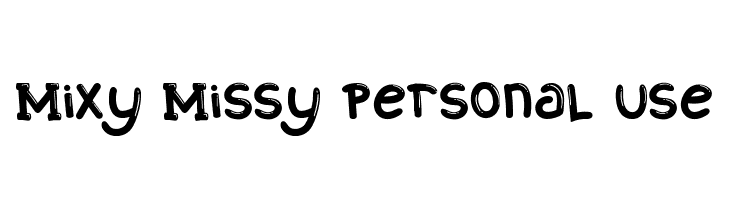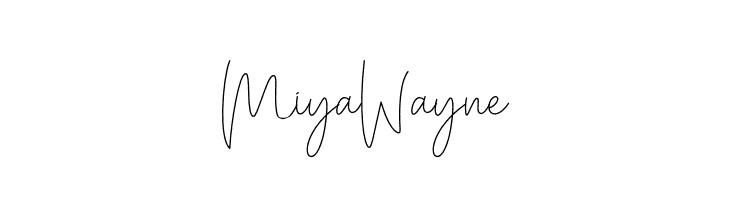
• Mixy Missy Personal Use шрифт
( Fonts by PutraCetol Studio )
A playful, hand-drawn font with bold, rounded characters.
• Miya Wayne шрифт
A delicate, flowing handwritten font with thin, elegant strokes.